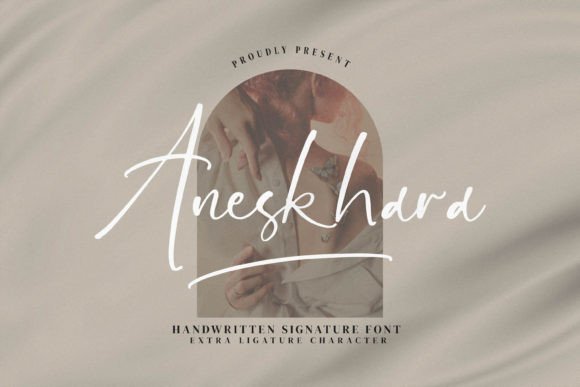
The Perfect Handwritten Touch: Introducing the Aneskhara Font
Have you ever been brainstorming a new project and suddenly, the perfect font pops into your mind? For designers, this moment is like a breath of fresh air. It’s the spark that sets the creative wheels in motion, and it’s exactly what the Aneskhara Font is designed to ignite.
The Aneskhara Font is a beautiful, flowing handwritten font that adds an elegant touch to any project. Its timeless style is sure to captivate your audience and leave a lasting impression. Whether you’re working on a wedding invitation, a blog post, or a social media campaign, this font is the perfect addition to bring your design to life.
What makes the Aneskhara Font truly valuable for designers is its versatility and distinctiveness. It’s a font that can be used in a variety of contexts, from formal to informal, and always looks stunning. With the Aneskhara Font, you’ll be able to create spectacular designs that stand out from the crowd and leave a lasting impression on your audience.
Aneskhara Font Key Features
- Font Family: Aneskhara is a unique, hand-drawn font that features a mix of elegant and bold characteristics, making it suitable for various design projects.
- Language Support: The font supports a wide range of languages, including Latin, Cyrillic, and Greek alphabets, making it a versatile choice for international designs.
- Unique Characteristics: Aneskhara Font features intricate details, ornate flourishes, and a mix of uppercase and lowercase letters, making it a standout choice for designs that require a touch of elegance and sophistication.
Design Review: Aneskhara Font
Overall, I think Aneskhara Font is an interesting choice for designers looking for a unique aesthetic. There are several aspects that work well in its favor.
- ✨ Its distinctive flair and elegance make it suitable for formal invitations, titles, or headings in a publication.
- ✨ The font’s complexity adds depth and visual interest, which can be beneficial for designers seeking to convey a sense of sophistication or luxury.
- ✨ Aneskhara Font also appears to be highly legible, even at smaller sizes, which is essential for text-heavy content.
However, there are some limitations that designers should consider.
- ⚠️ The font’s unique features might be challenging to pair with other fonts, and it may not be suitable for body text, as it can become overwhelming.
- ⚠️ Some letters, like ‘a’ and ‘e’, may not be immediately recognizable for readers unfamiliar with the font.
- ⚠️ Due to its intricate design, Aneskhara Font may not be the best choice for digital displays with low resolution or pixel density.
Overall, Aneskhara Font is a great option for designers who want to add a touch of elegance and sophistication to their projects. However, it’s essential to use it judiciously and consider the potential limitations before making a final decision.
Aneskhara Font is commonly used for:
- Typography-based designs (e.g., posters, flyers, brochures)
- Logo design and branding
- Editorial and publishing projects
Tips for Getting the Most Out of Aneskhara Font
For optimal results, consider the following tips:
- Pair Aneskhara Font with complementary fonts to create visual interest
Alternatives to Aneskhara Font for Designers
Carolyna Pro is a luxurious serif font that offers a sophisticated and elegant look. It is ideal for use in high-end branding, advertising, and editorial designs. This font is comparable to Aneskhara Font in terms of its classic and timeless feel, but it has a more refined and polished appearance.